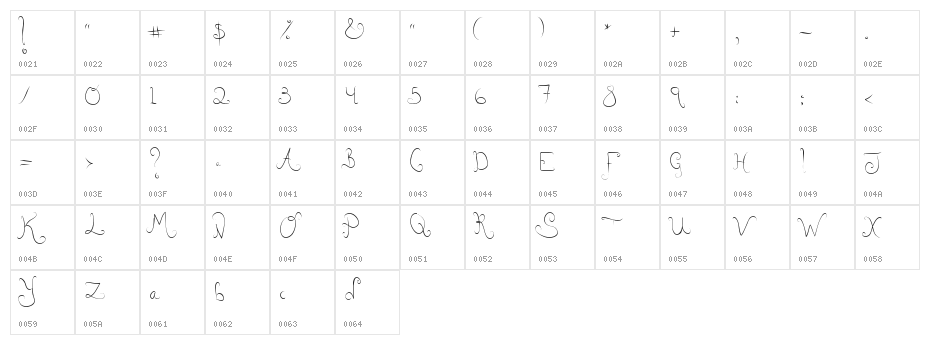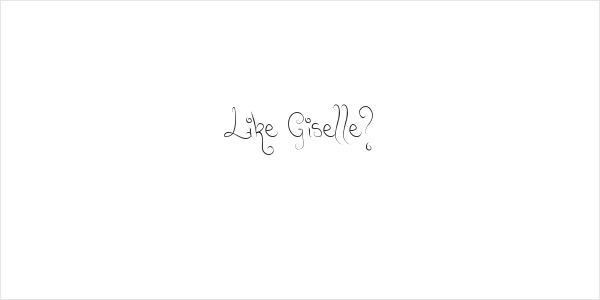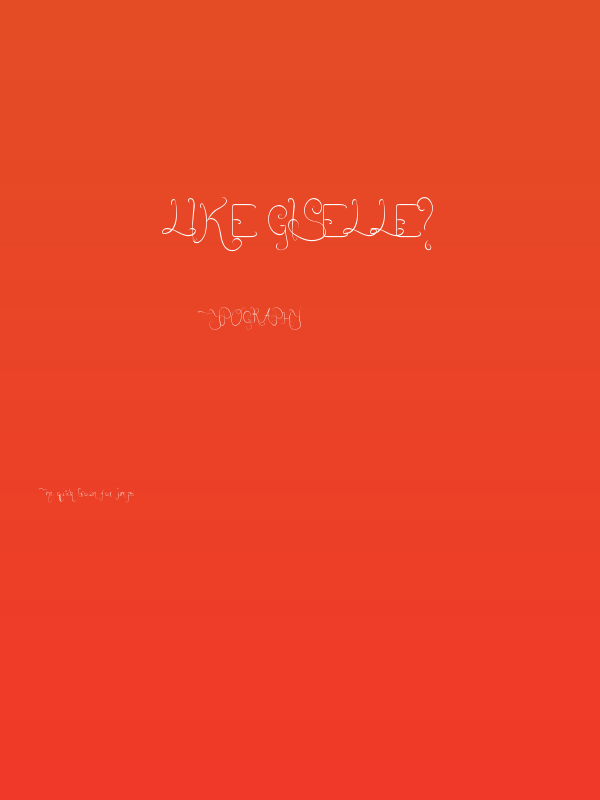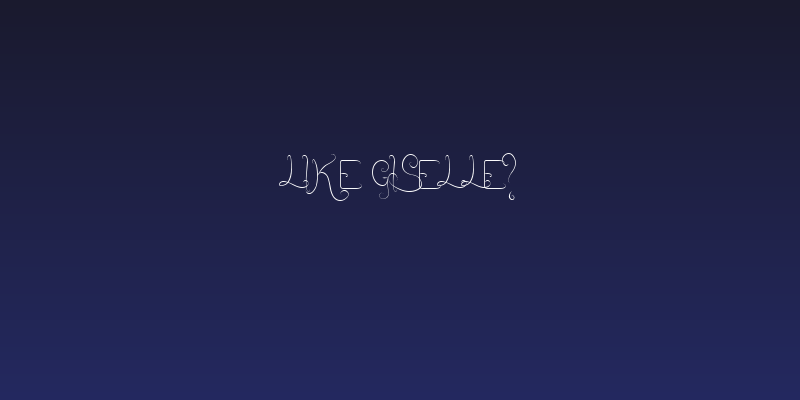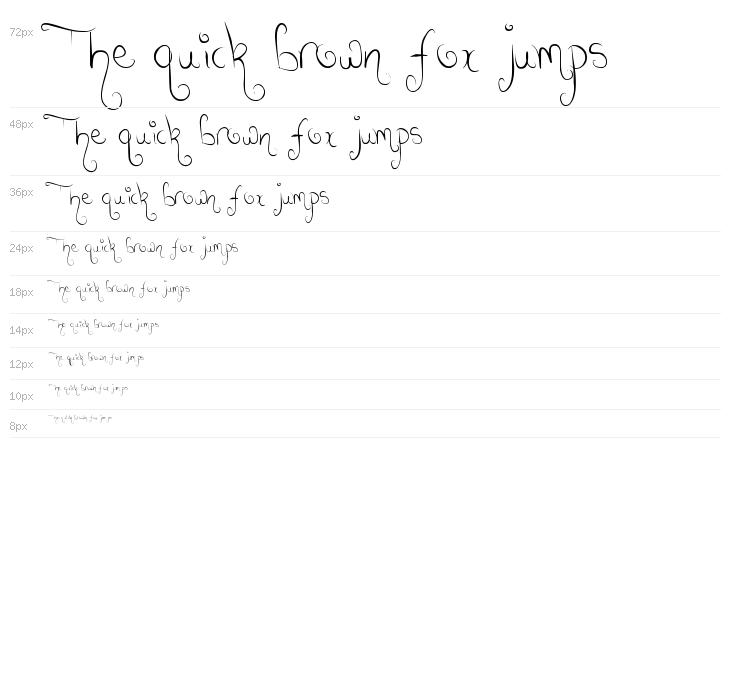
Like Giselle? Font
Like Giselle? Description
This font features an elegant and whimsical design, characterized by its intricate swirls and loops that extend from each character. The uppercase letters are particularly ornate, with flourishes that give a sense of movement and grace. The lowercase letters maintain a consistent style, offering a playful yet sophisticated appearance. Numbers and special characters are designed with the same attention to detail, ensuring a cohesive look across all elements. This font's delicate strokes and artistic flair make it ideal for creative projects that require a touch of elegance and personality.
Use CaseHeadlines, Logos, Invitations
Proposed ProjectsIdeal for wedding invitations, greeting cards, branding for luxury products, and artistic posters.